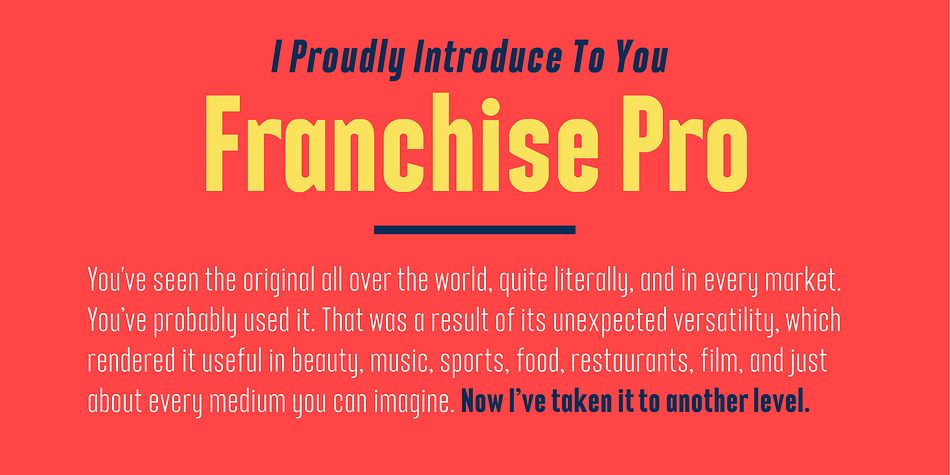
Franchise Pro
Franchise Pro is a sans serif font family. This typeface has nine styles and was published by Interrobang Type.
FRANCHISE is a powerful display typeface meant to communicate rapidly and with power without compromising style. Franchise is just as much at home on the front of a donut shoppe as it is on the scoreboard at a football stadium.
This was the original description given when the face was released, and it proved quite prophetic as the typeface has been used all over the world in just about every industry. You can get a small taste of its versatility by checking out the face in use.
The full version is an extension of the original face, but it is also a re-working of it. Optical adjustments provide for a more legible face, and one that plays nicely in different weights. Rounded corners have given way to decisive edges and deliberate angles. Each weight speaks a distinct language on its own, but mixing the weights provides for an engaging texture and solid balance of legibility and power that works hard for you. And that’s what makes for a great display face, is it not?
And now…now we have lowercase characters and oblique, which make the font just about the most versatile display (and even medium text) face around. I dare you to find a usage for which this font doesn’t work.